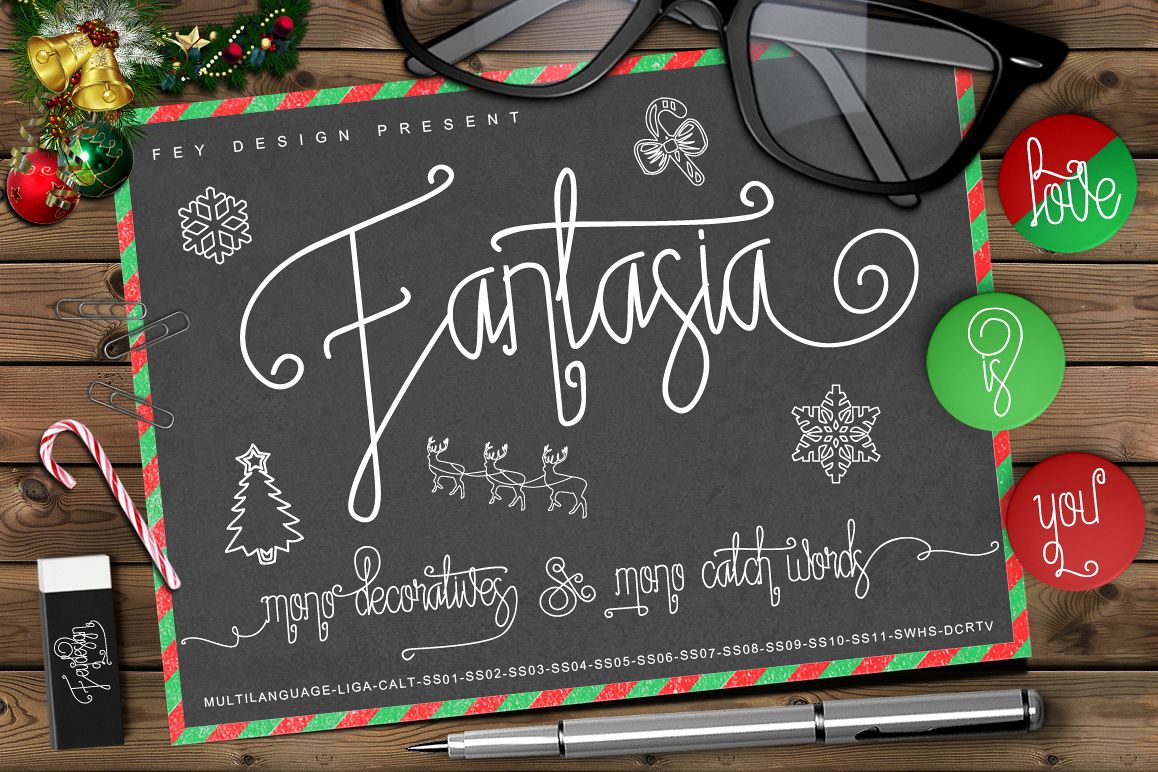
Fantasia Monoline Calligraphy And Bonus
Fantasia Decorative.
Fantasia Monoline.
Suitable for design, element design, wedding, event, t-shirt, logo, badges, sticker, and awesome work, etc...
- Combination alternative ligature fonts
- Standard Ligatures, Stylistic Set, Multilanguage Characters, Swashes, Decorative, And Contextual Alternates
- Modern Calligraphy Typeface
- Unique style fonts